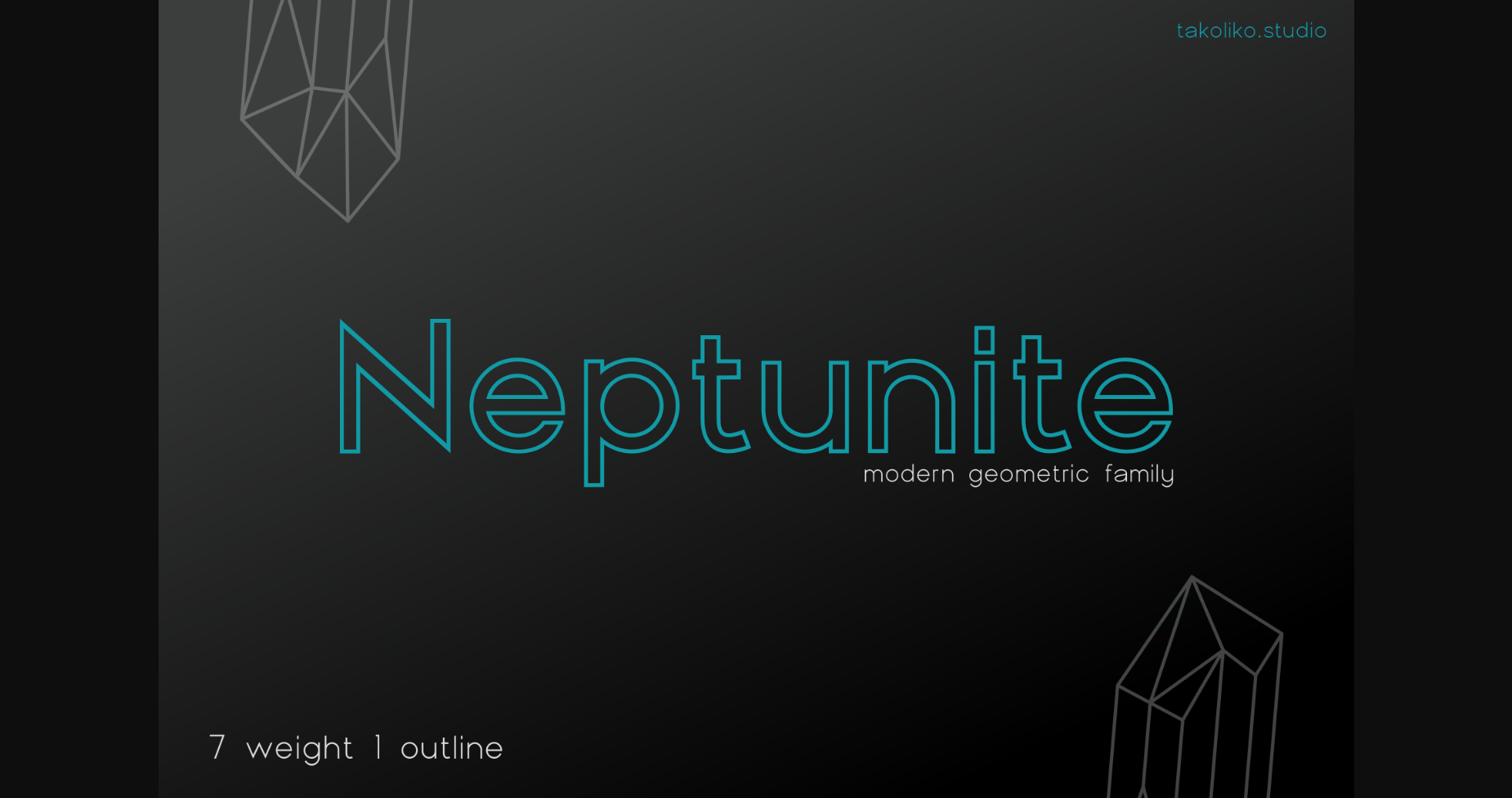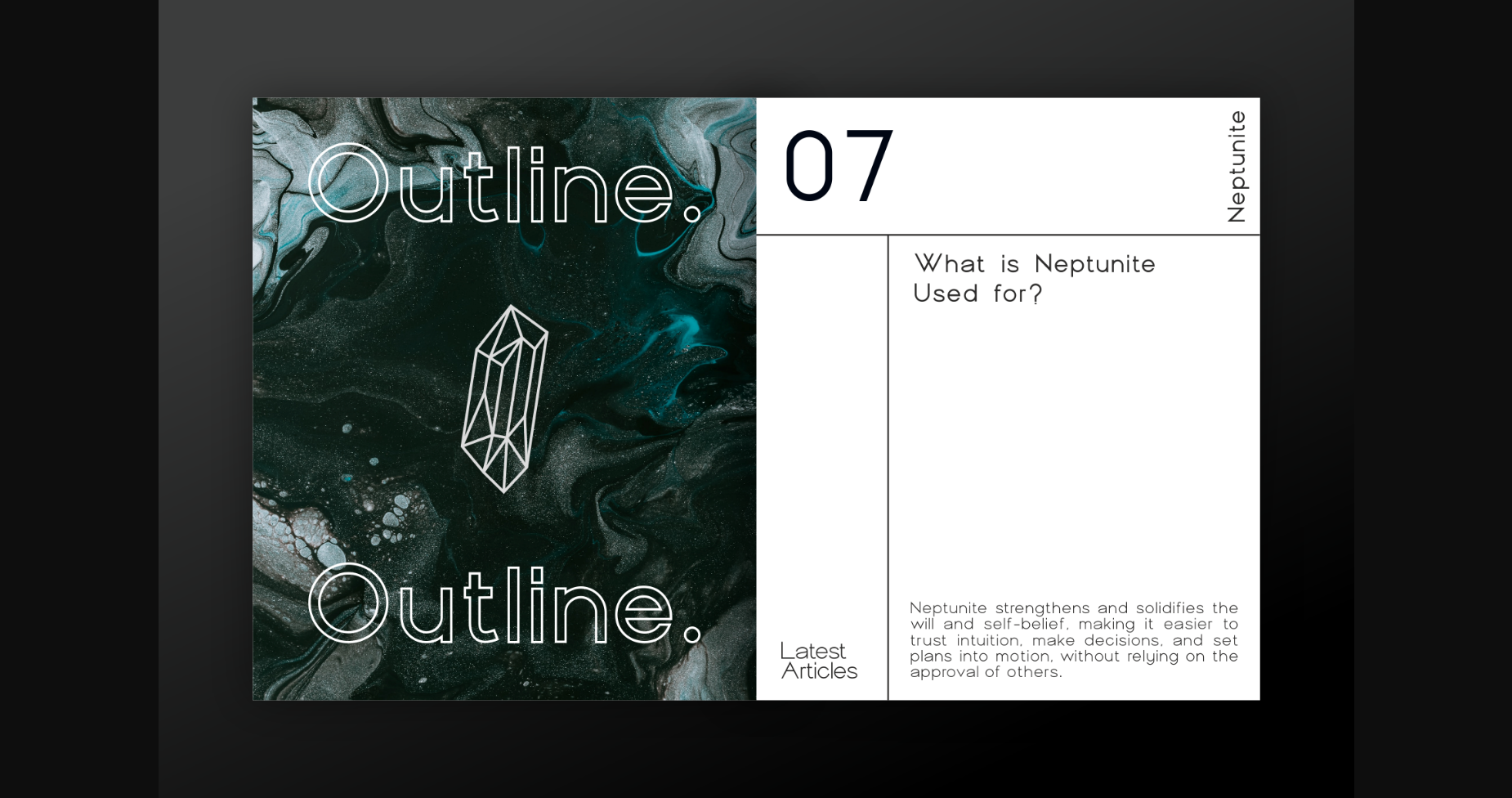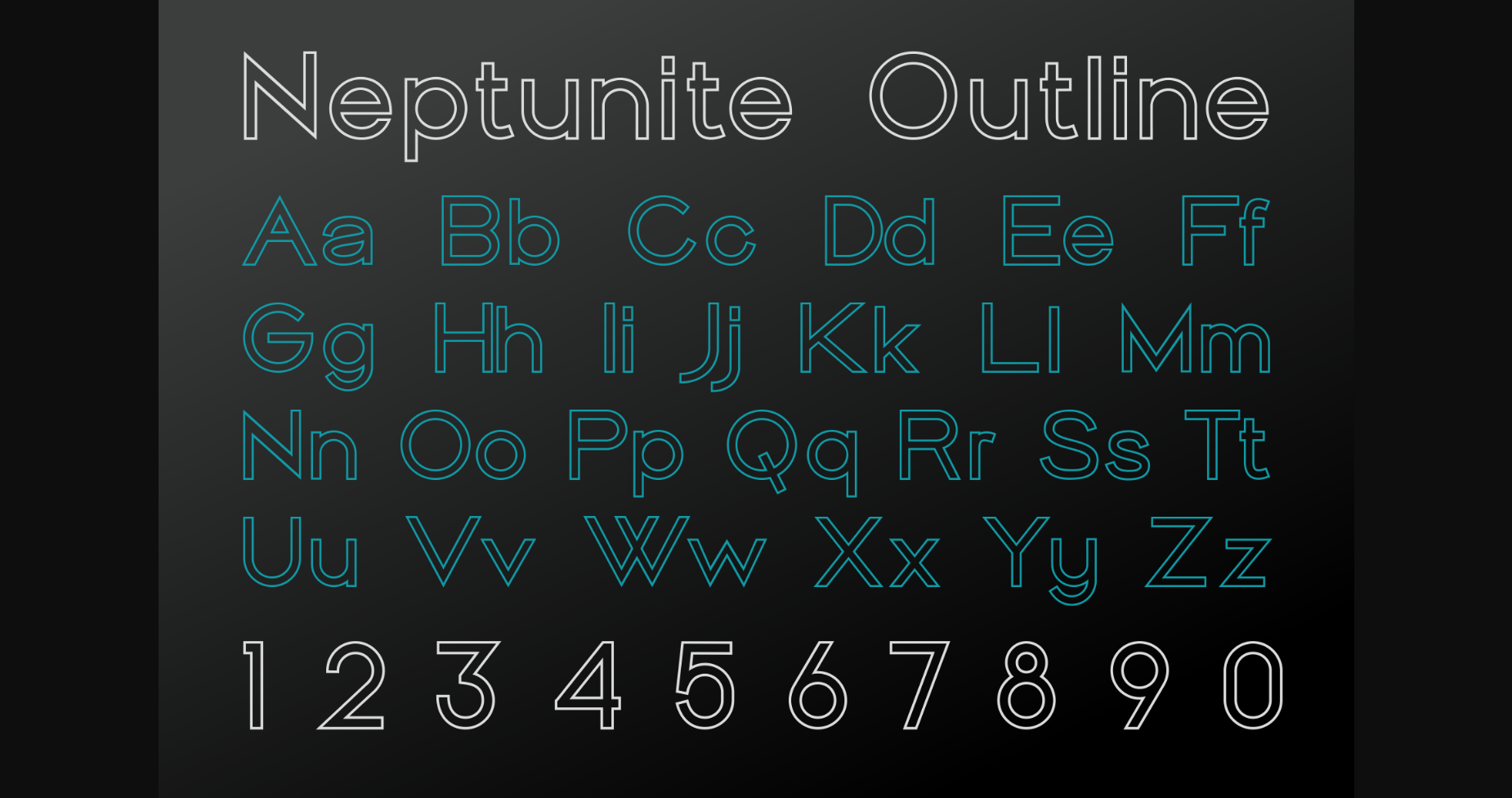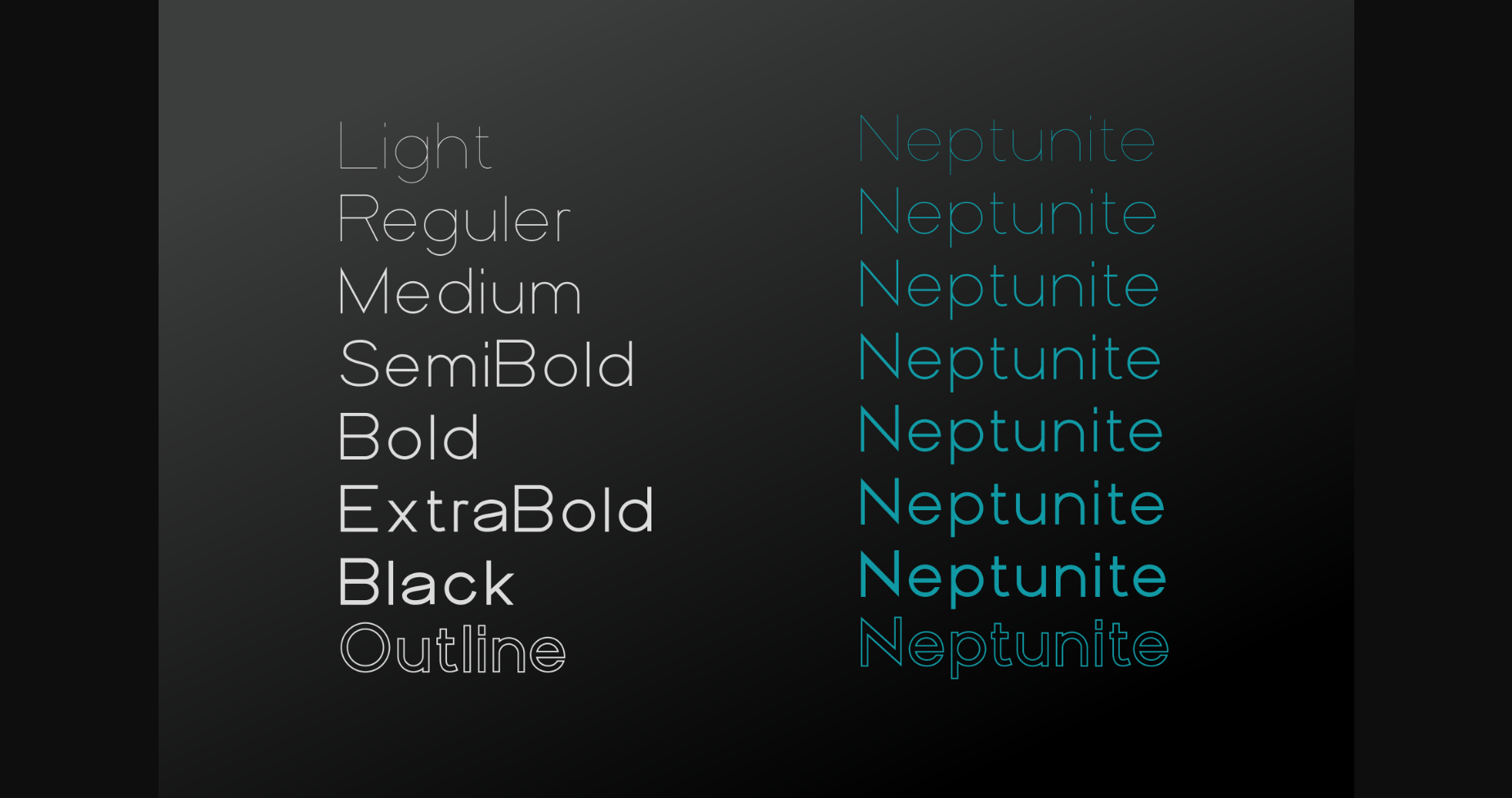
Neptunite Font
About Neptunite Font
Neptunite is a minimal and neat sans serif font. It can easily be matched to an incredibly large set of projects, so add it to your creative ideas and notice how it makes them stand out!